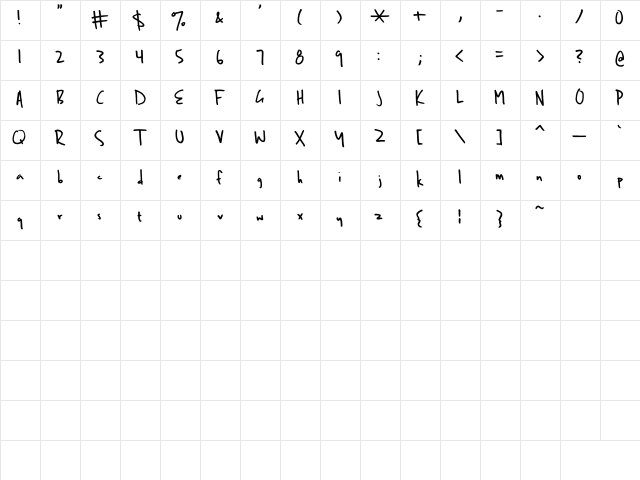
Ben Brown Regular Font Preview
Ben Brown Regular
Ben Brown Regular Font Details
| Foundry | Lauren C. Brown |
| Designer | Lauren C. Brown |
Design Context for Ben Brown Typeface
Ben Brown is a composed and adaptable typeface that performs quietly and consistently across a wide range of design contexts.